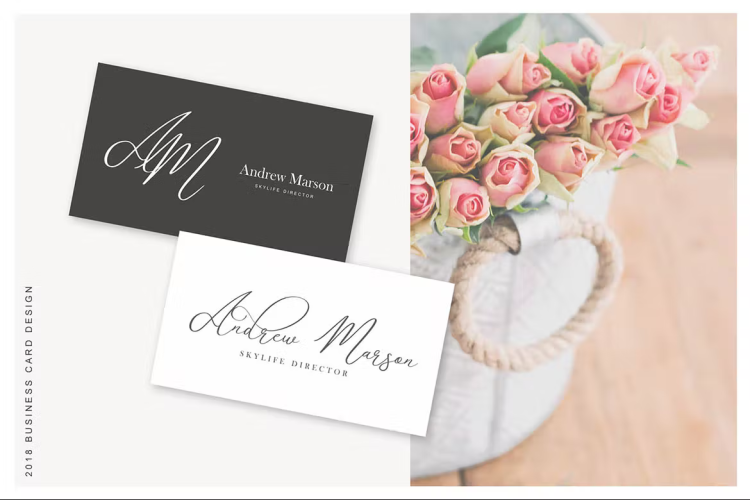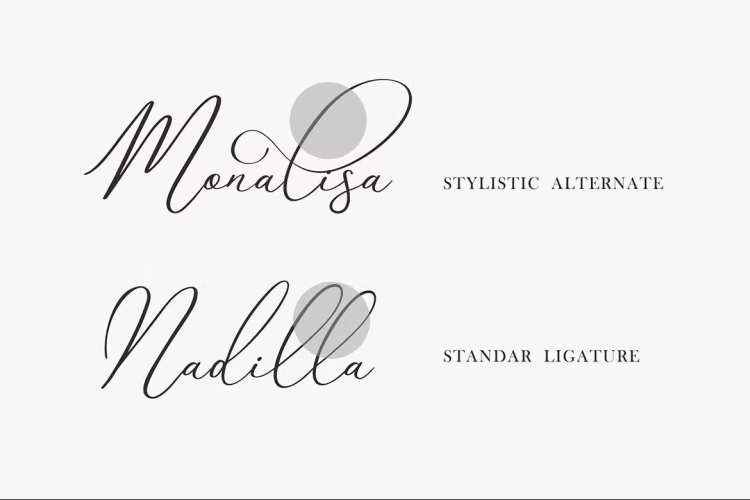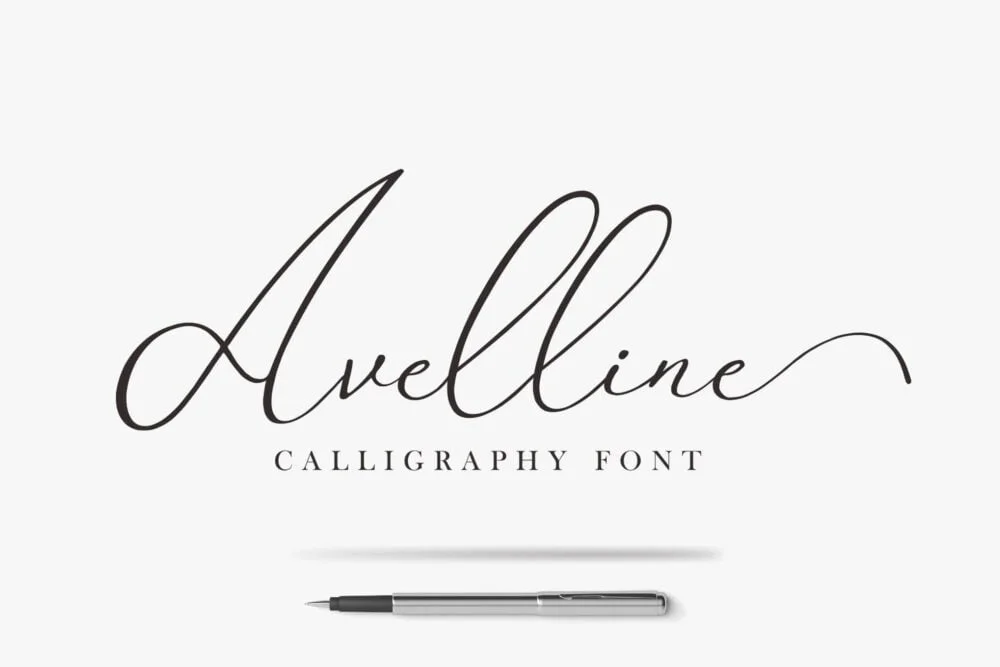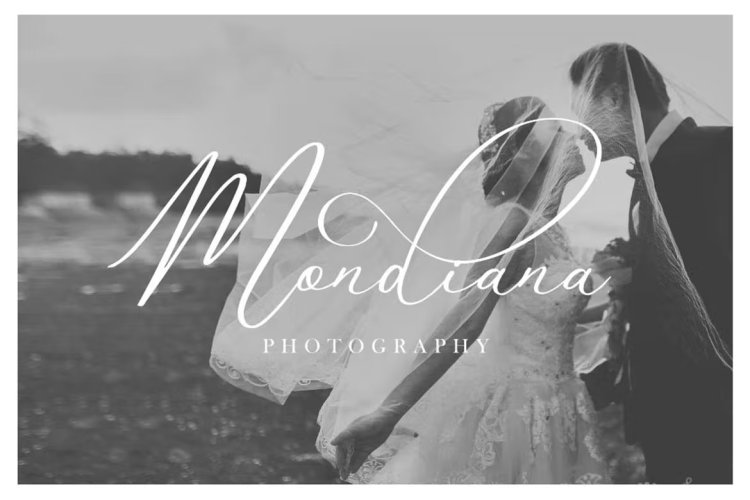
Avelline Font
Avelline is modern calligraphy font. This is awesome for your project, classy signature, photography signature, beautiful quotes, cosmetic branding, or any beautiful des…
Avelline is modern calligraphy font. This is awesome for your project, classy signature, photography signature, beautiful quotes, cosmetic branding, or any beautiful design project.
Where Avelline Font works best
Avelline Font brings a personal, handwritten warmth to invitations, menus and place cards.
Craft brands — coffee, cosmetics, bakery — use scripts like Avelline Font for signature-style logos and labels.
Pair Avelline Font with a plain sans for quotes, stories and Pinterest pins that feel handmade.
What is Avelline Font good for?
Avelline Font is a Script And Handwritten typeface tagged Branding, Calligraphy, Modern, Script. It works well for headlines, logos, posters, social media graphics and branding projects that need a distinctive script and handwritten look.